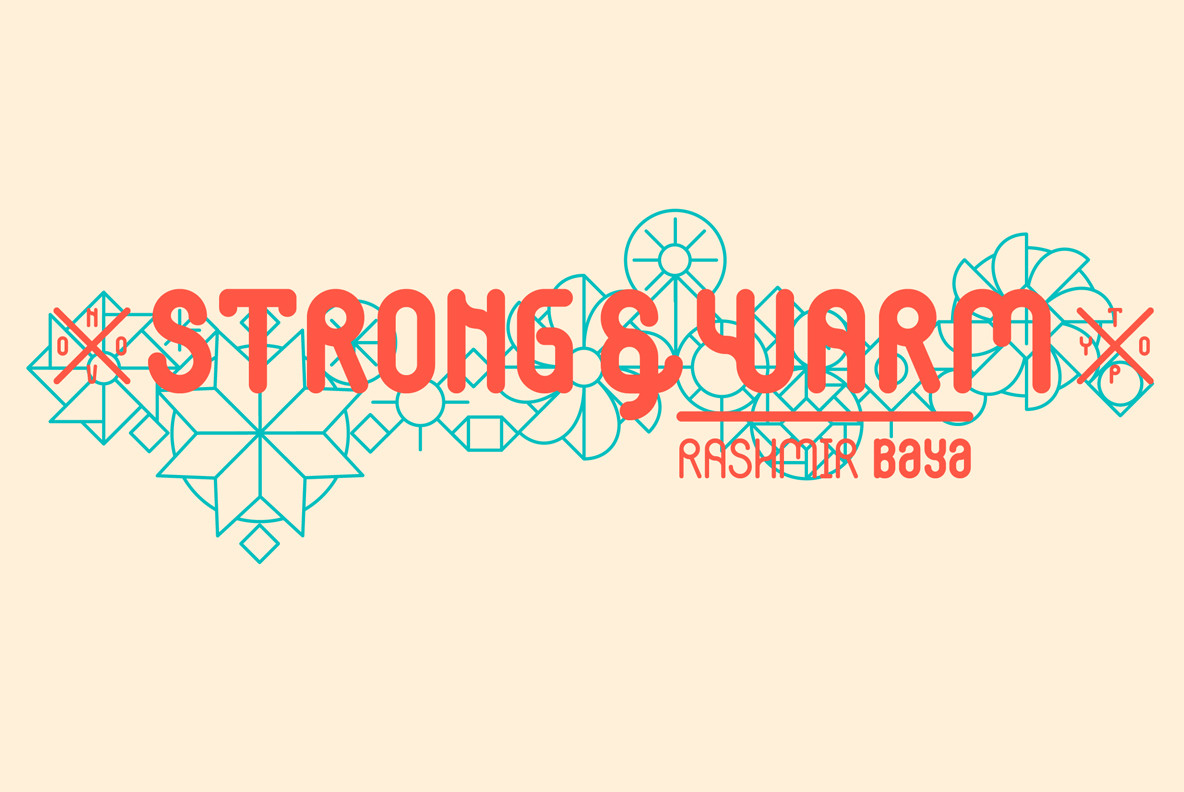
NT Rashmir Font
Meet Rashmir, a Sanskrit inspired font family. Rashmir comes in three different variations; exotic Amal, friendly Baya and delicate Cyra. Enjoy the warm and playful curves of this Indian style display family.
Originally designed for Rashmir Eco Notebook series, these three fonts will visualize your creative wishes.
Whether you need an exotic typeface for an Indian reference, a Darjeeling Tea packaging or a typical Bollywood poster, Rashmir will be a reliable friend to help you to create your oriental dreams.
Rashmir comes in three different fonts, Amal, Baya and Cyra and contains a Basic Latin Character set, with some nice extra features including the Rupee sign.
NT Rashmir is designed by Novo Typo, (typo)graphic designers from Amsterdam, The Netherlands.